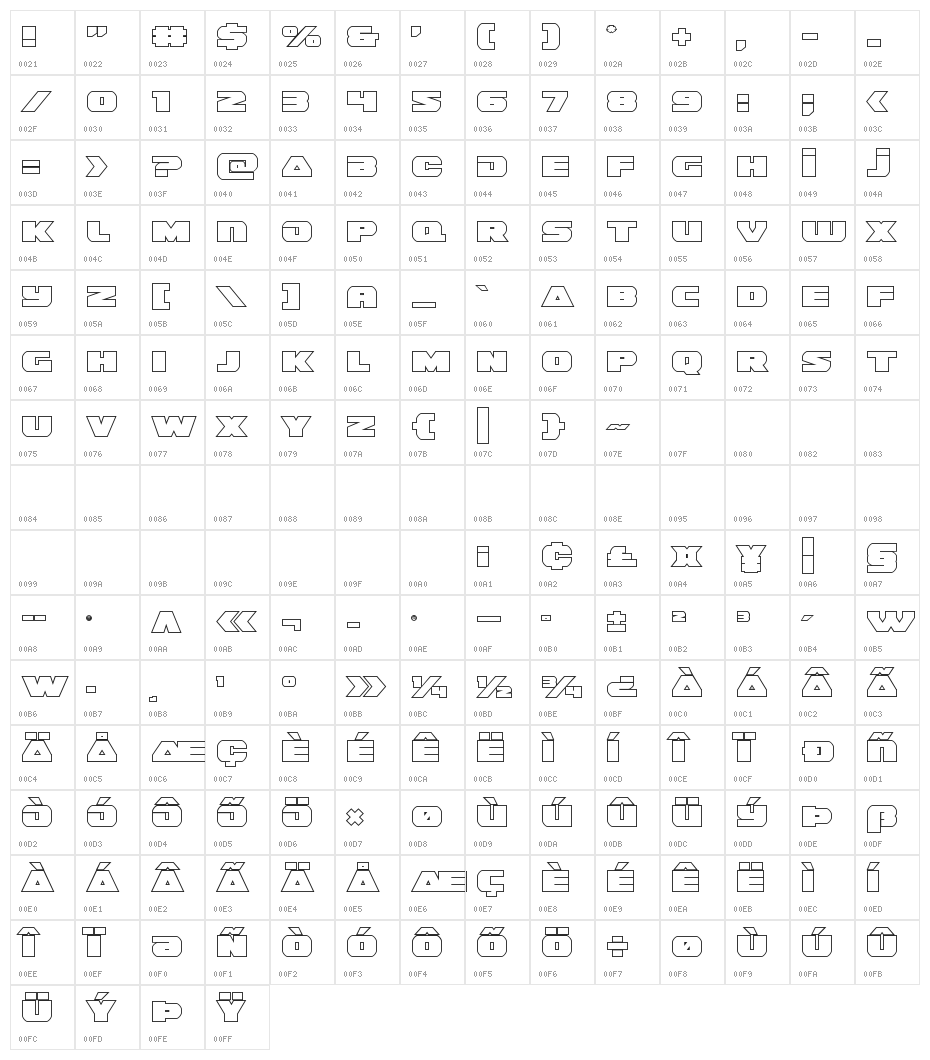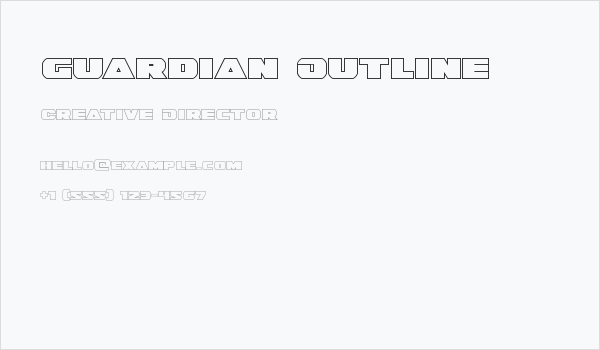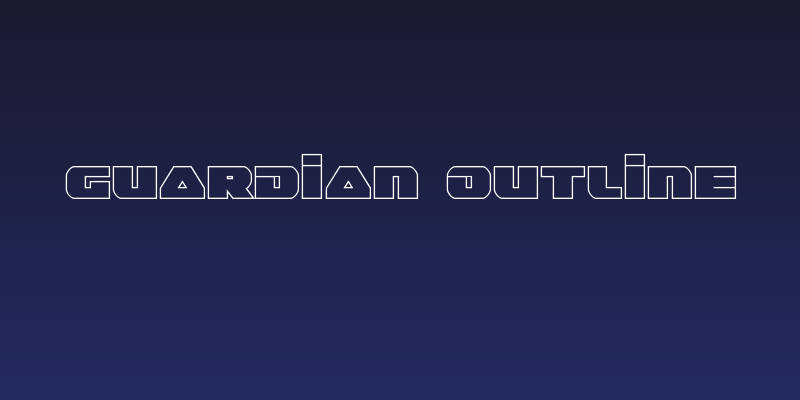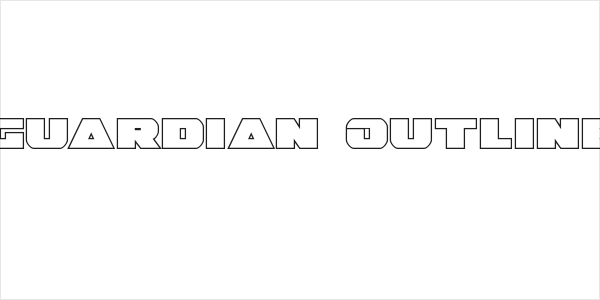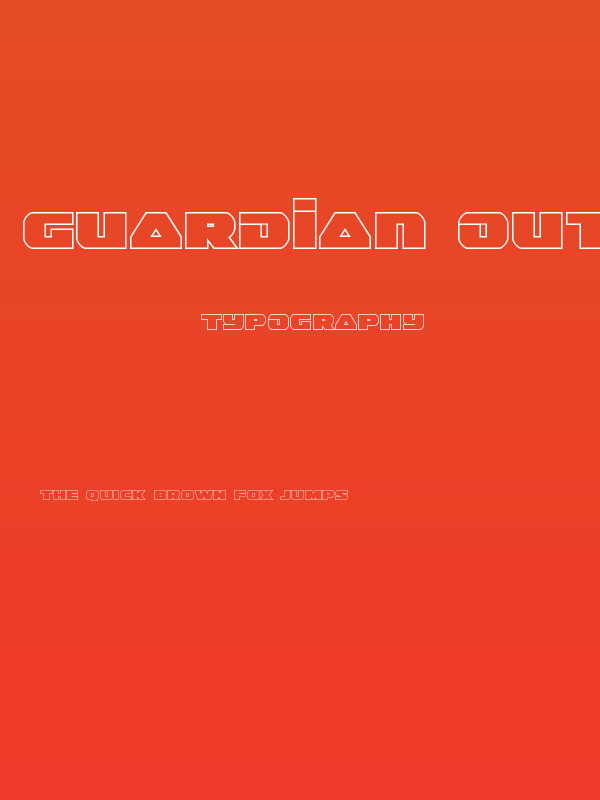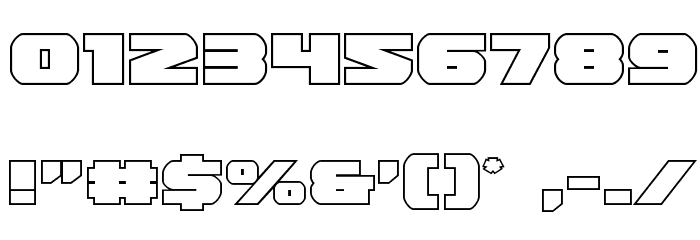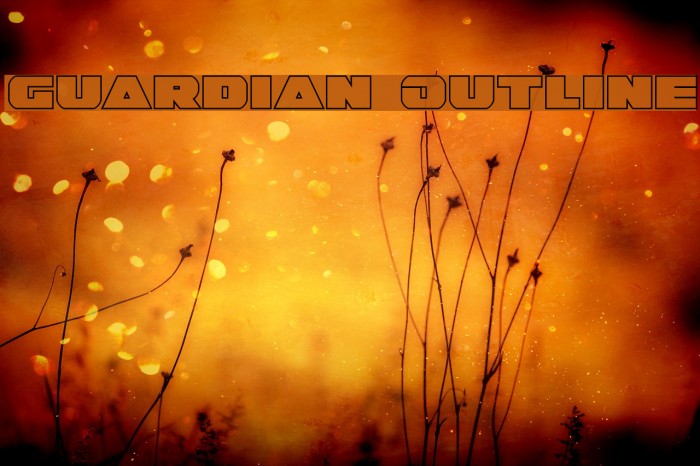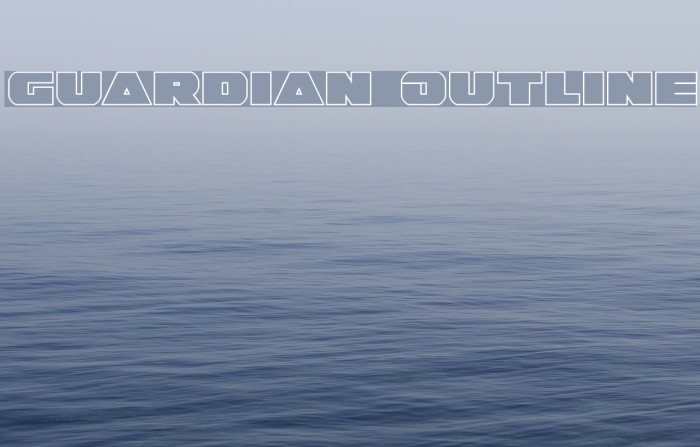
Guardian Outline Font
Guardian Outline Description
This font features a bold, geometric outline style with a futuristic and angular design. Each character is defined by sharp edges and a consistent thickness, creating a cohesive and striking appearance. The uppercase and lowercase letters maintain a uniform height, contributing to a balanced and structured look. The numerals and special characters follow the same design principles, ensuring versatility across different uses. The font's outline nature gives it a unique, modern aesthetic that stands out, making it suitable for attention-grabbing headlines and creative projects.
| Proposed Projects | Ideal for sci-fi themed posters, video game titles, branding for tech companies, and modern graphic design projects. |